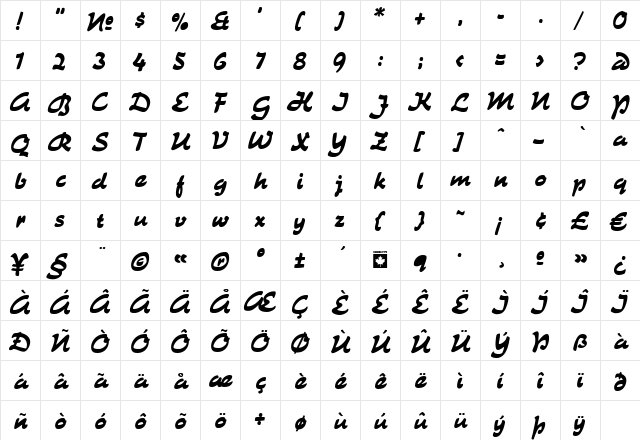
Puma Regular
Design Context for Puma Typeface
Puma is a composed and adaptable typeface that performs quietly and consistently across a wide range of design contexts.